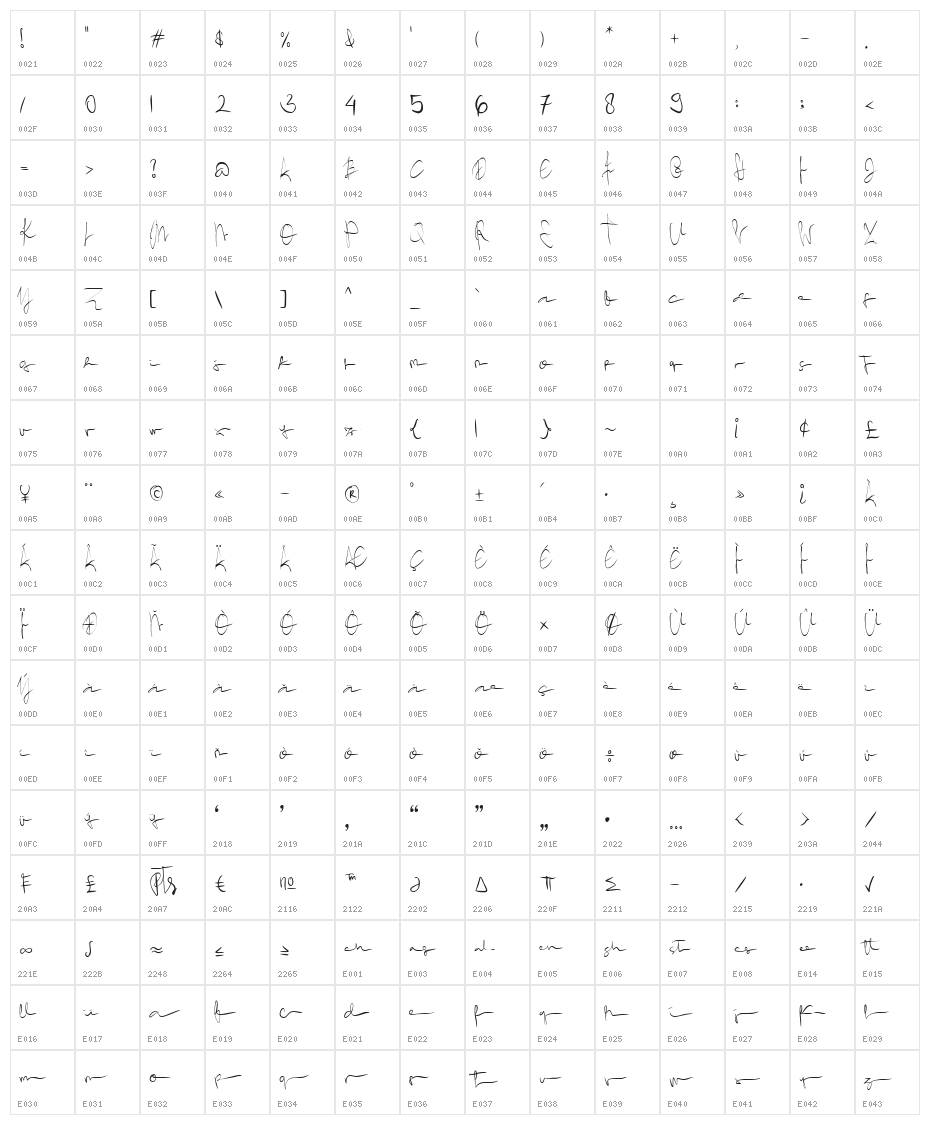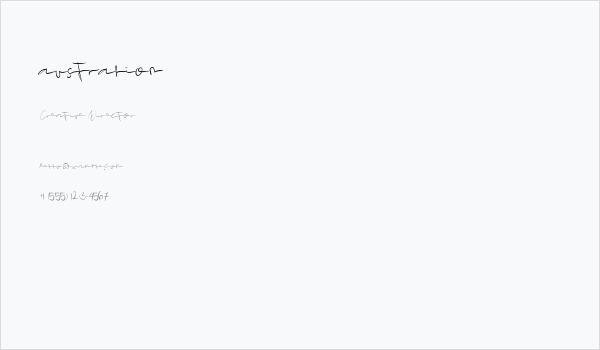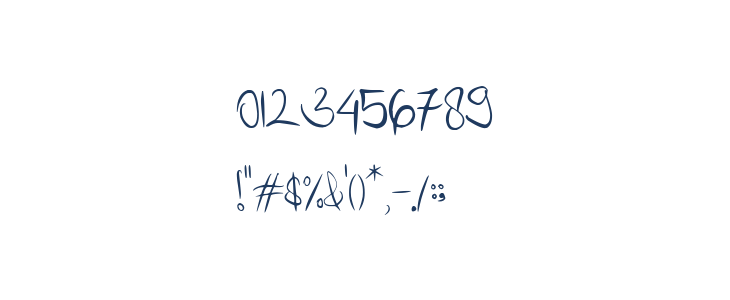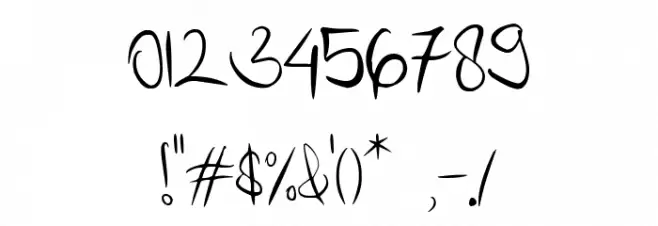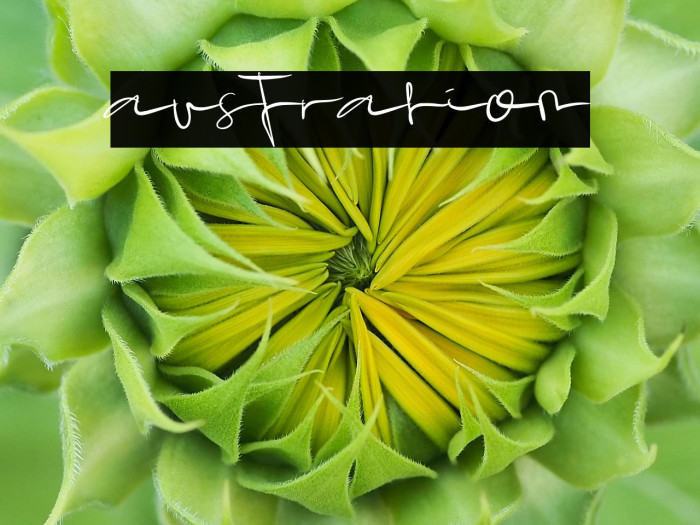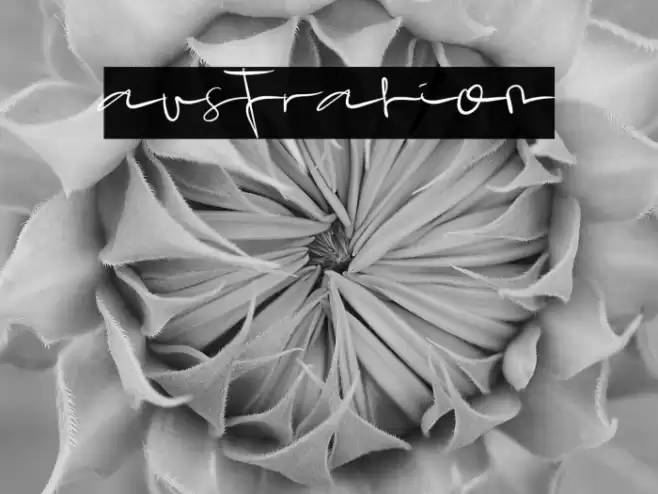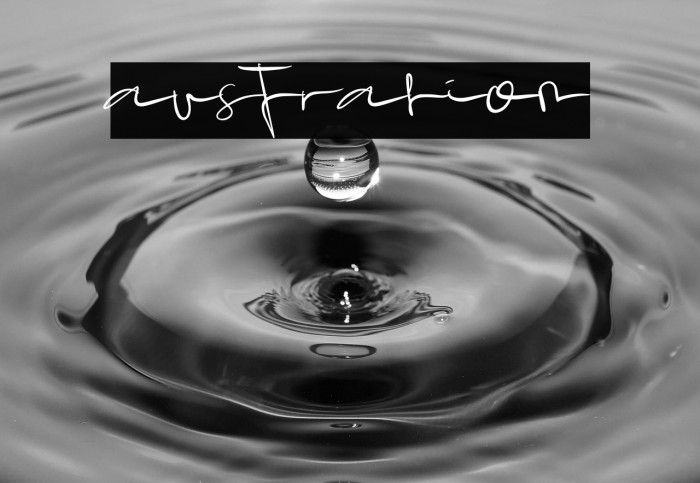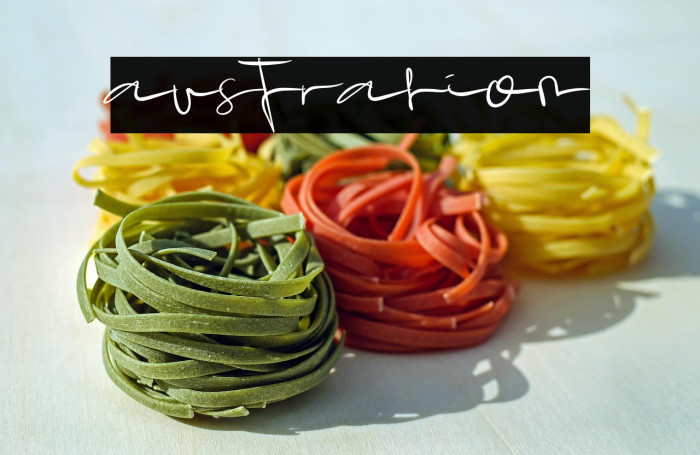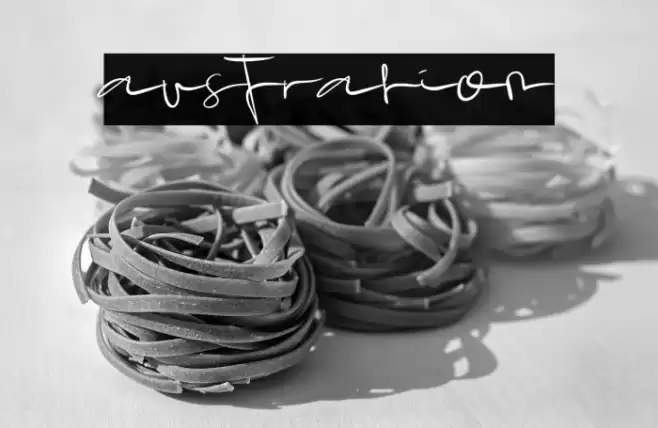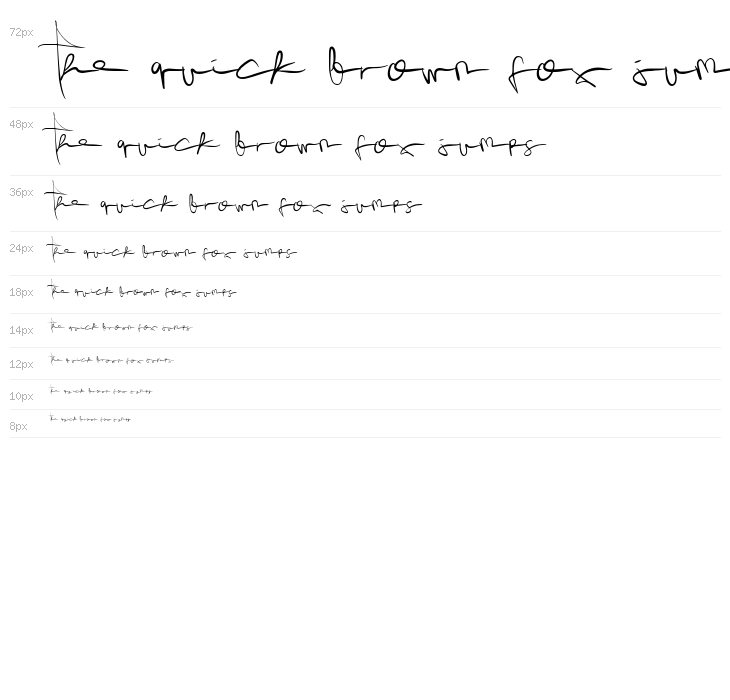
australion Font
australion Description
This font exhibits a unique, handwritten style with a playful and artistic flair. The letters are characterized by their fluid, cursive strokes, giving an impression of spontaneity and creativity. The uppercase letters are tall and slender, with exaggerated loops and curves that add a whimsical touch. The lowercase letters maintain a consistent flow, complementing the uppercase with their own set of loops and swirls. Numbers are bold and slightly more structured, providing a nice contrast to the letters. Special characters are creatively designed, maintaining the overall artistic theme. The font's overall appearance is dynamic and expressive, making it suitable for projects that require a personal and informal touch.
| Use Case | Logos, Headlines, Artistic projects |
| Proposed Projects | Ideal for creative projects such as greeting cards, invitations, personal branding, and artistic posters. |